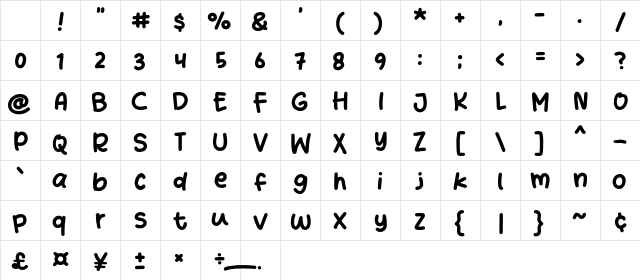
Ngaco Regular Free Font
Ngaco Regular
Foundry: Khurasan
Designer: Khurasan
Design Context for Ngaco
Ngaco is a composed and adaptable typeface that performs quietly and consistently across a wide range of design contexts.